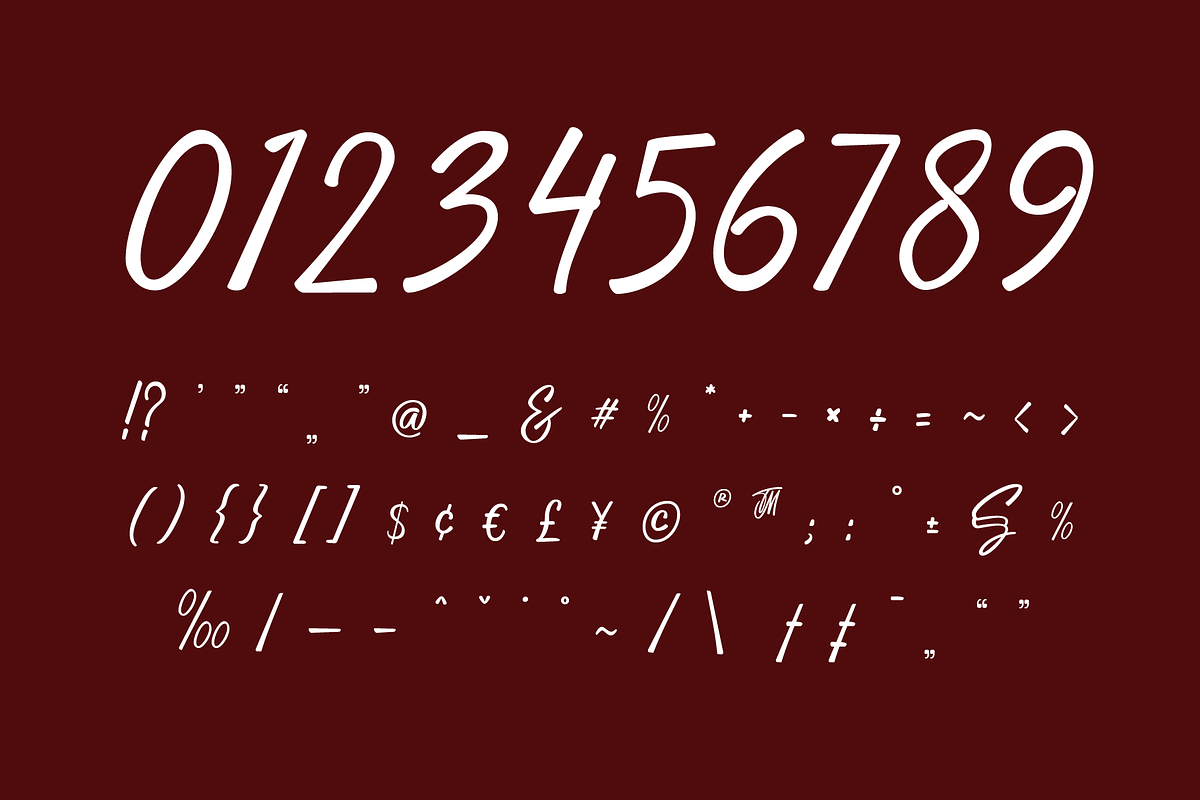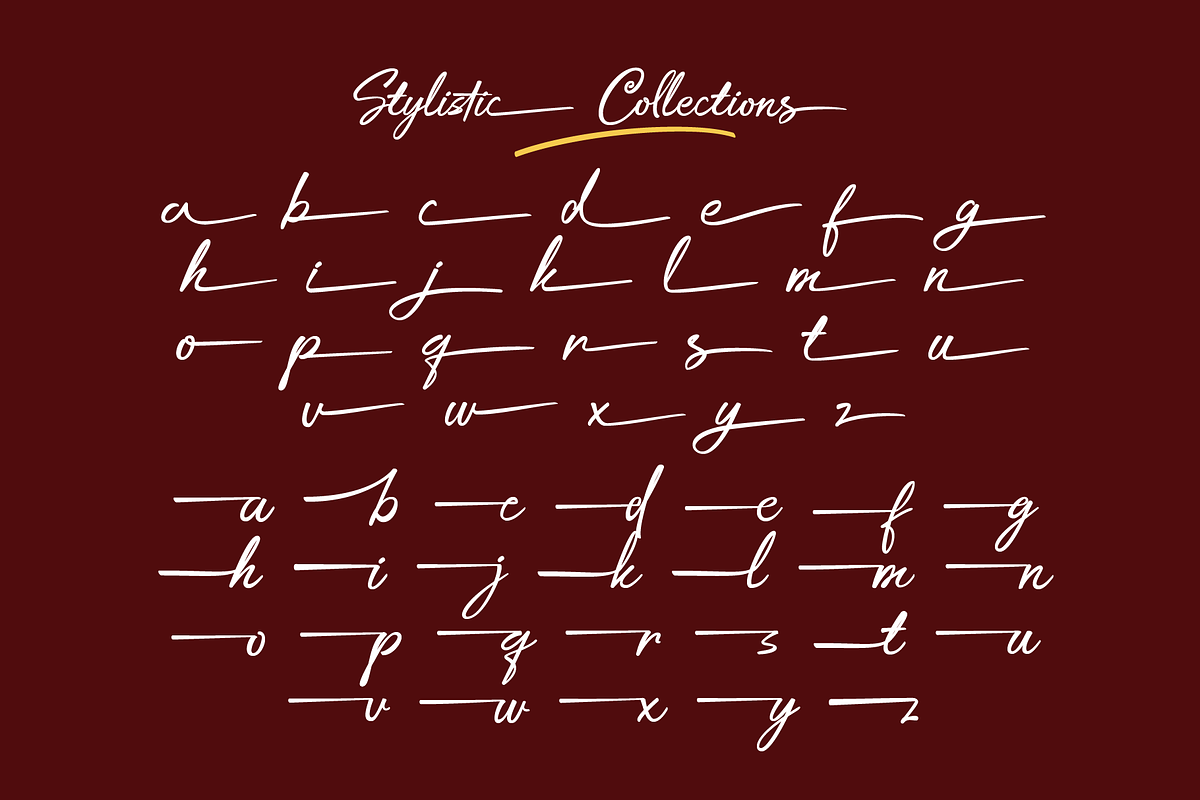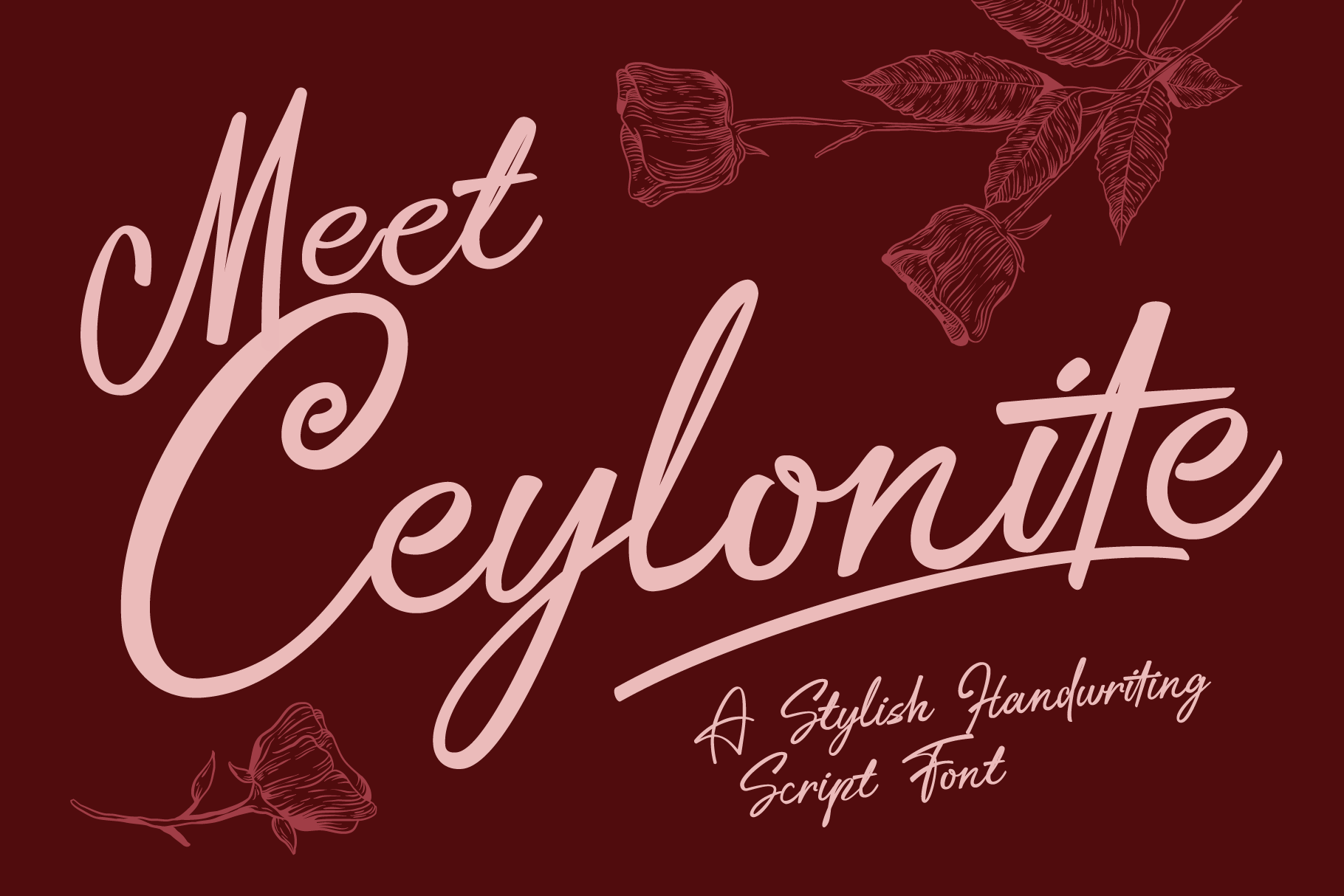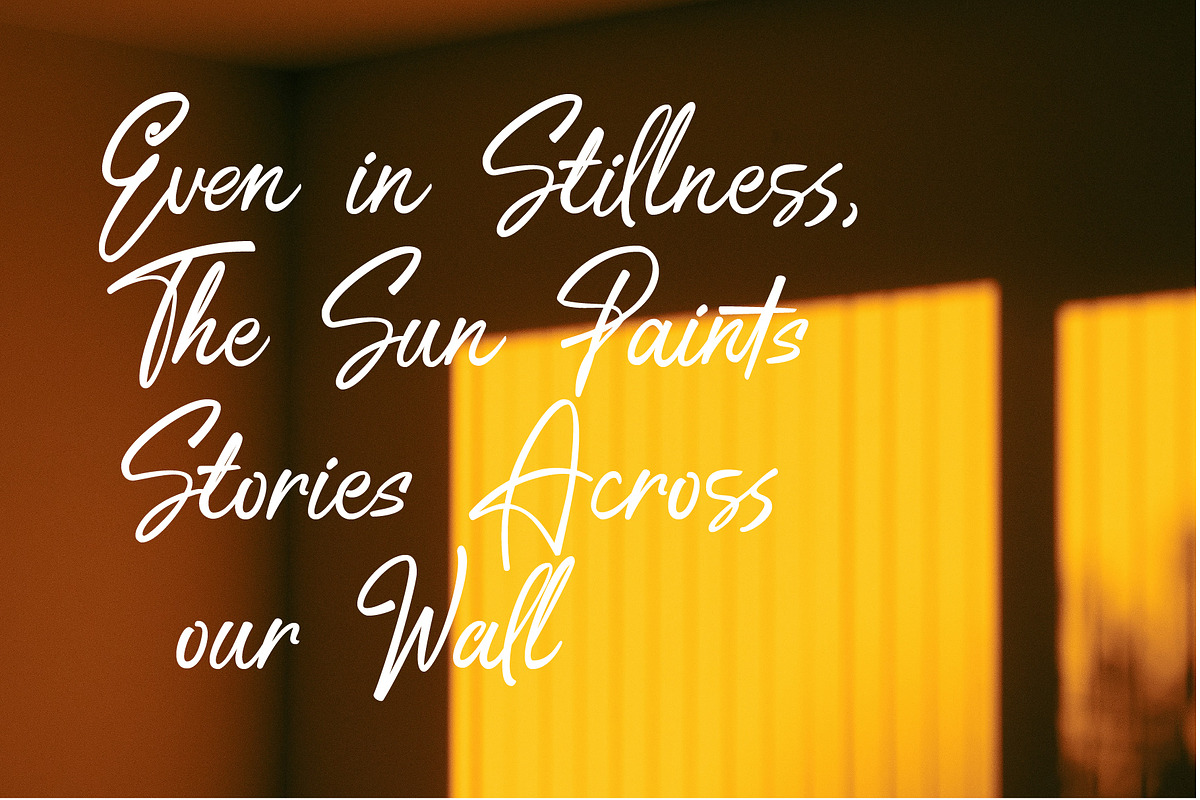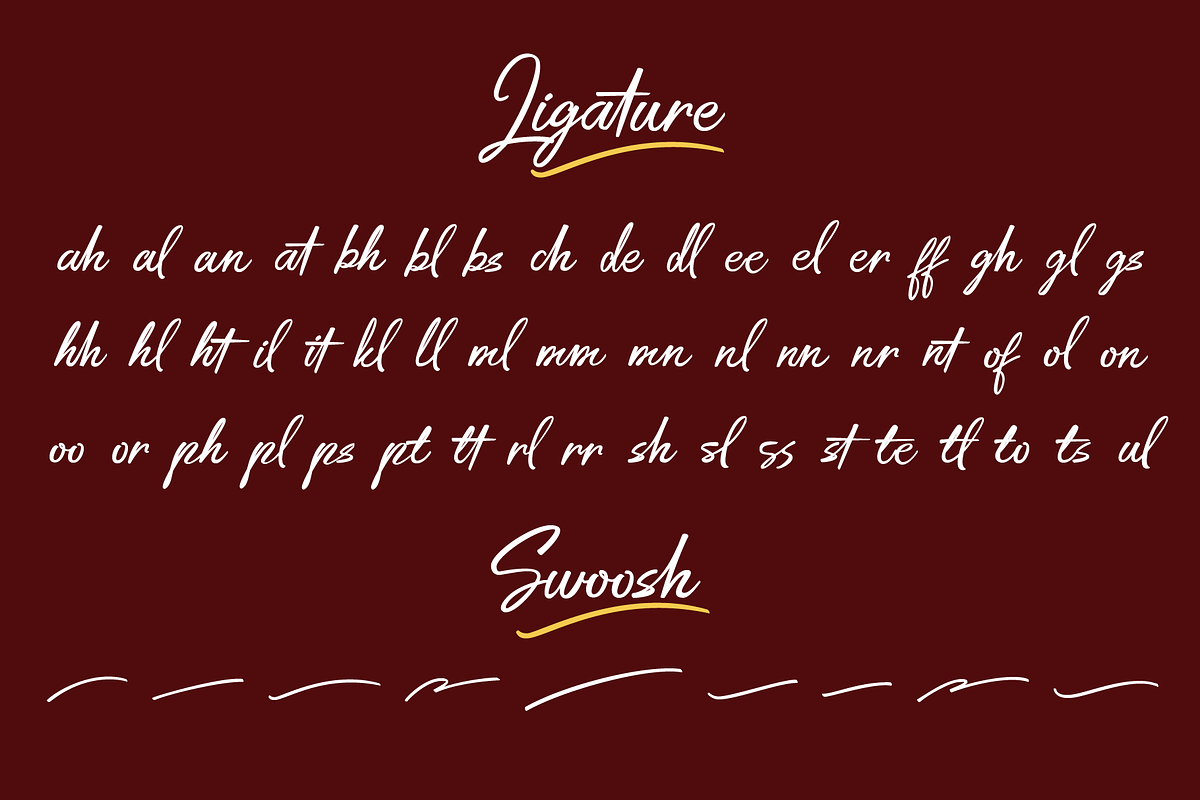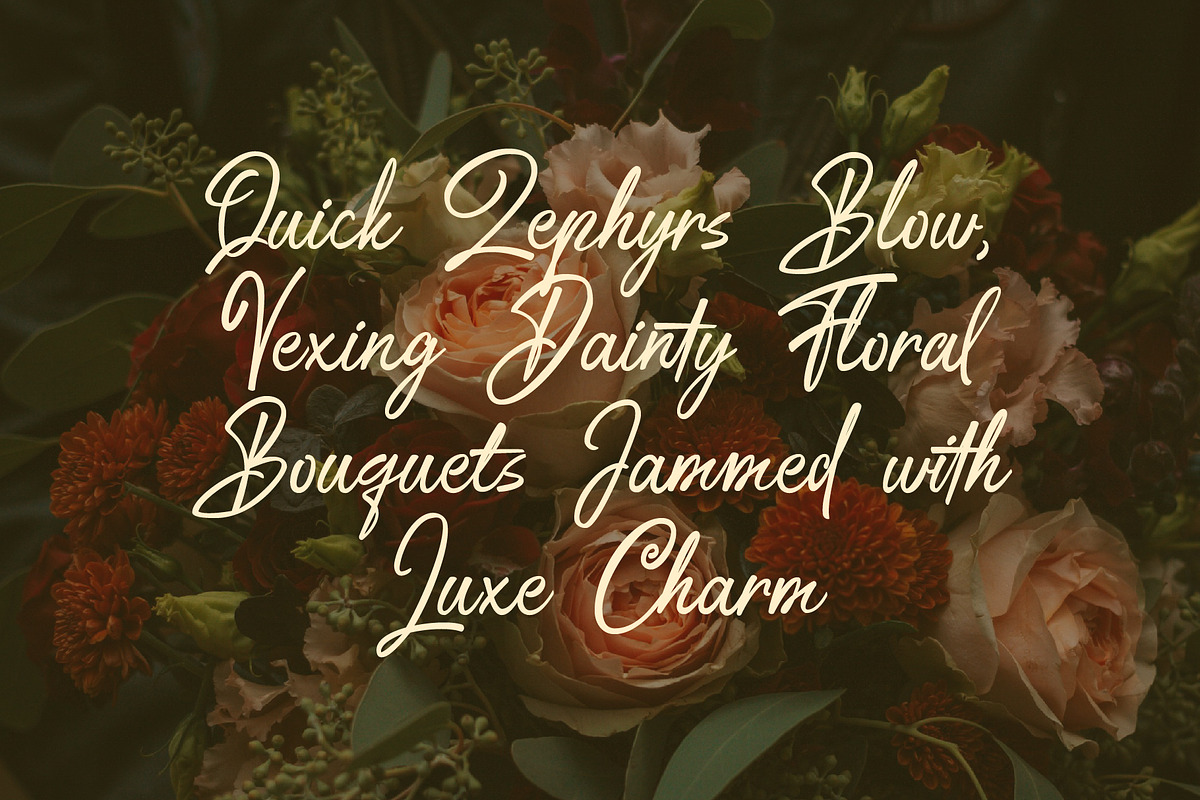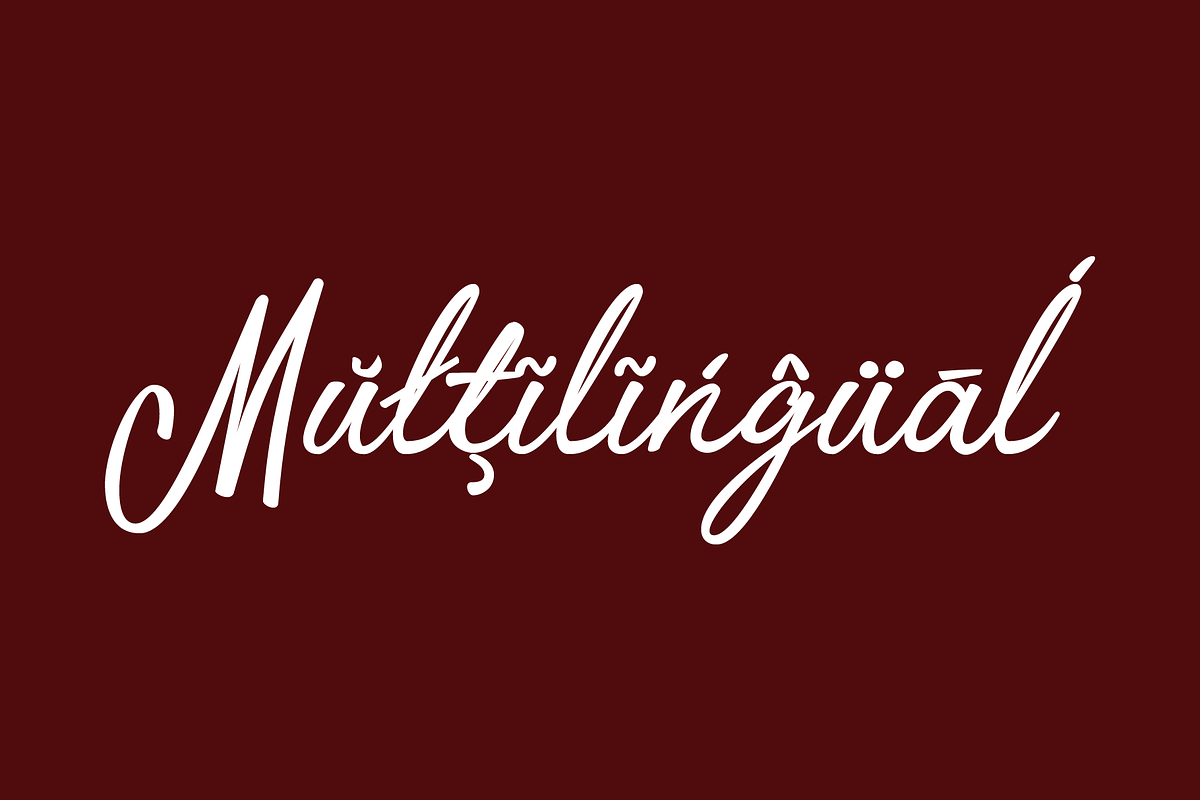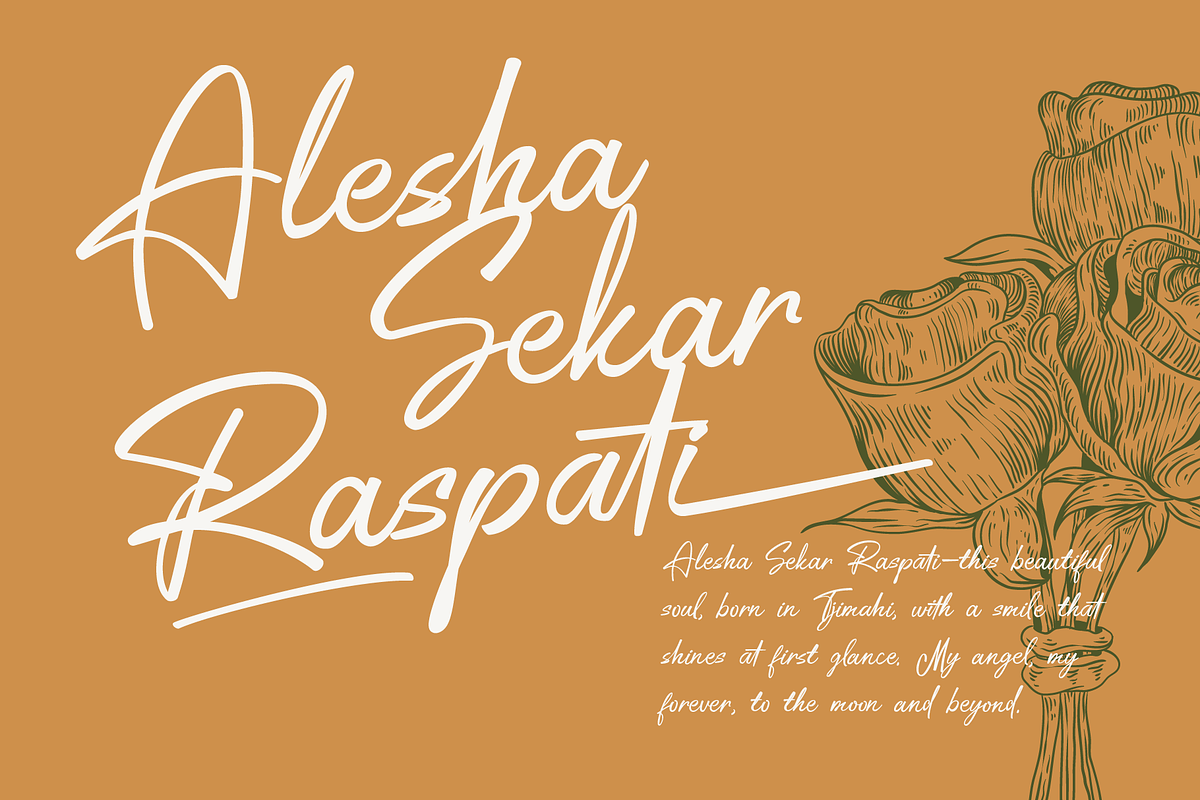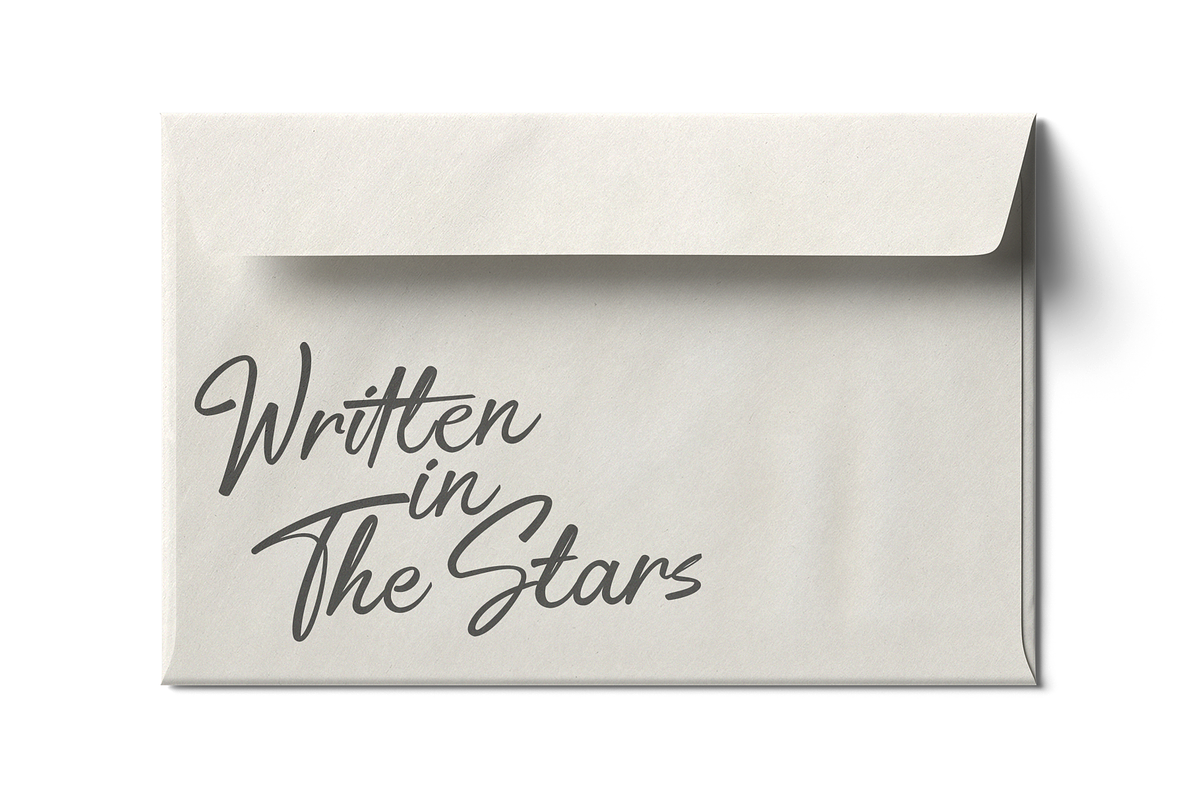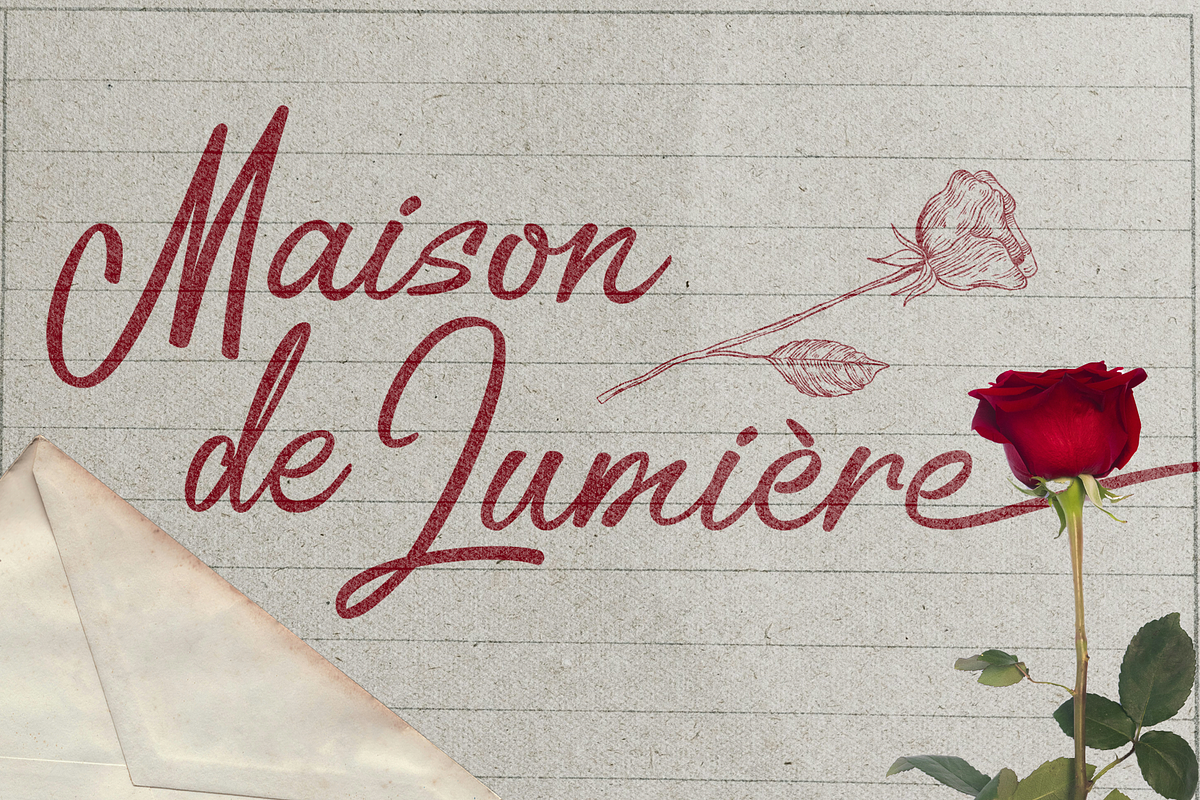
Ceylonite – Stylish Handwriting Font
Ceylonite is a stylish handwriting script font that brings a touch of elegance and personality to your designs. Inspired by natural hand-lettering, it’s perfect for branding, wedding invitations, quotes, packaging, greeting cards, social media graphics, and more.
This handwriting script font comes with alternates, ligatures, and swooshes, giving you endless creative possibilities to make your text look authentic and unique. Whether you’re designing for personal or commercial projects, Ceylonite will add a warm handwritten charm and a professional finish.
✨ Features:
- Stylistic alternates
- Swooshes
Ceylonite is versatile and easy to use in any design software. Perfect for logos, wedding stationery, posters, labels, magazines, and quotes—it’s the stylish script font your collection needs.